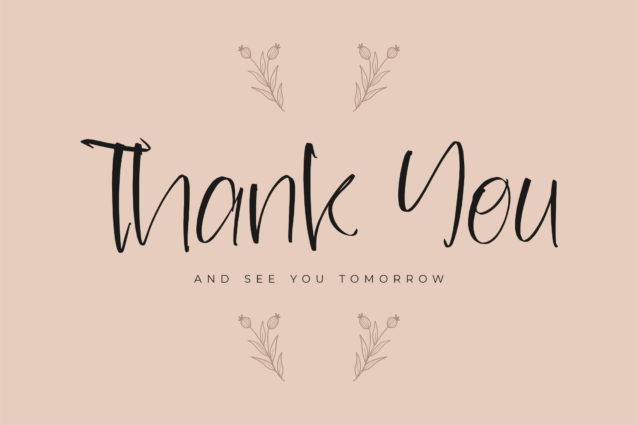
Hagliesta Ramoles Font
Hagliesta Ramoles Font is a Stylish Handwritten Font, suitable for any projects such as: logos, branding projects, homeware designs, product packaging, mugs, quotes, posters, shopping bags, t-shirts, book covers, name card, invitation cards, greeting cards, label, photography, watermark, special events, and all your other lovely projects that need a beautiful script taste.